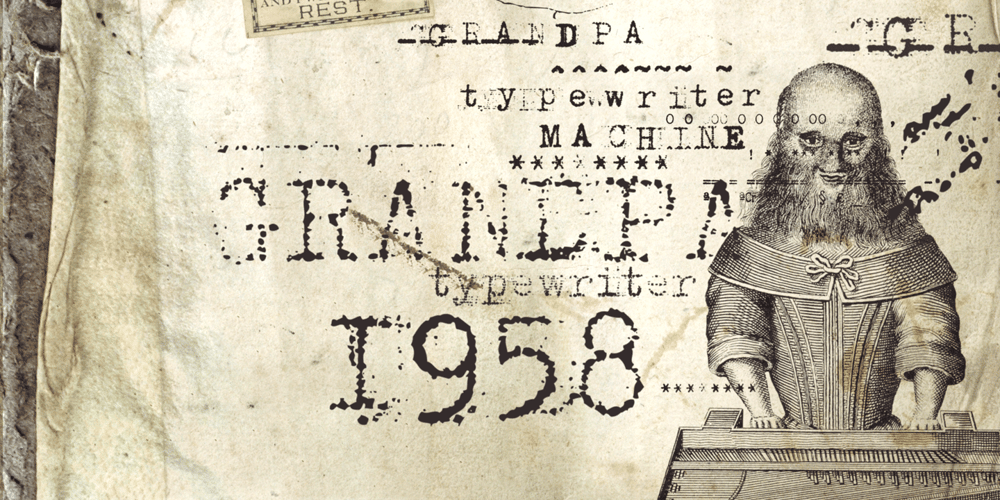
Grandpas Typewriter Font Family was designed by Eduardo Recife and published by Misprinted Type. Grandpas Typewriter contains 5 styles and family package options. Granpa’s typewriter comes from an antique Olivetti Typewriter Machine I have. This font has all of the effects a typewriter machine can offer you: a regular version, a strong hit version, a light distressed version, a double-hit version and X version, which is a compilation of several typewriter mistakes, tests and stains. This font is specially handy when trying to use a typewriter effect on an edgy/grunge work, where there’s no worry about perfection!